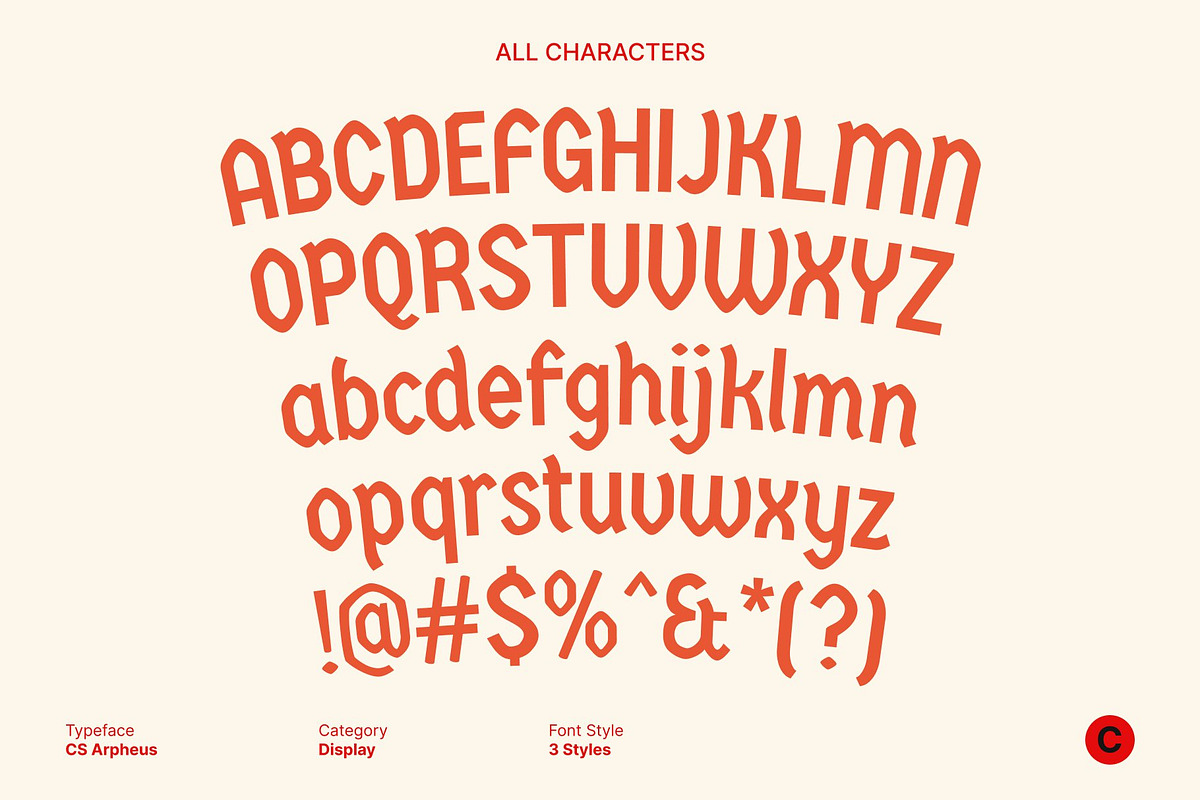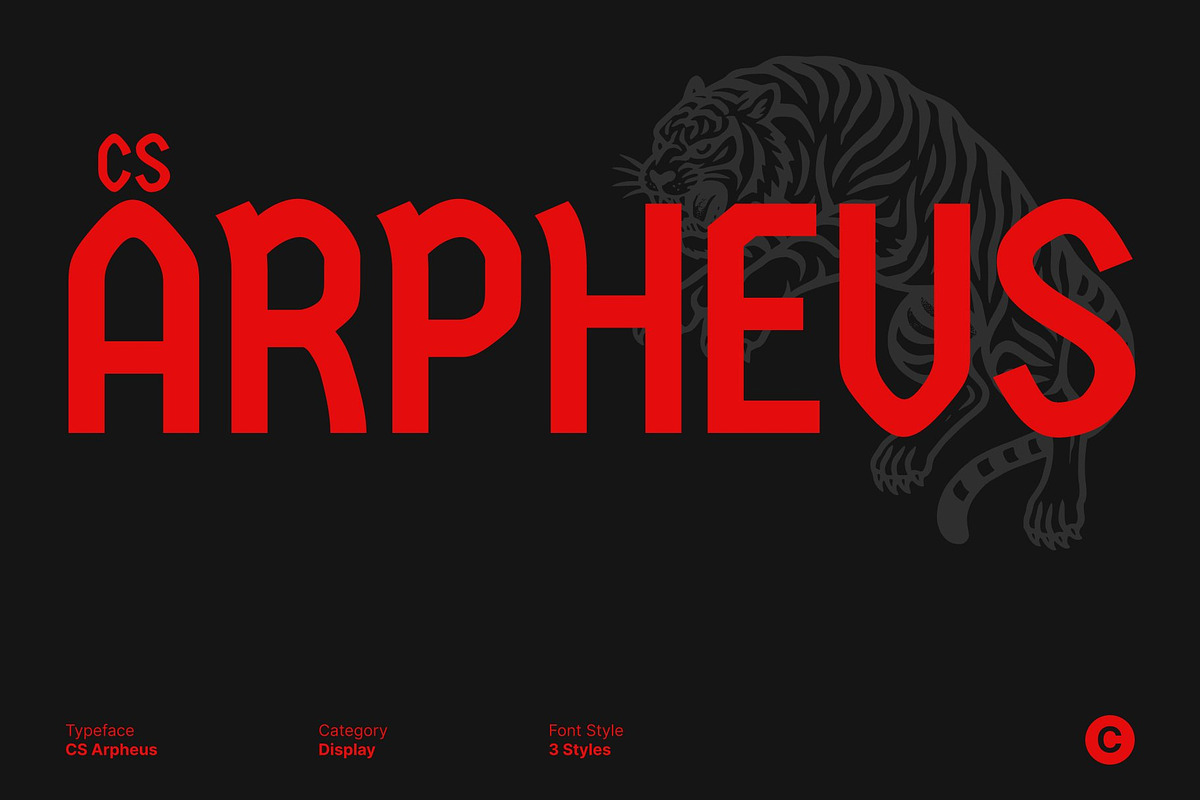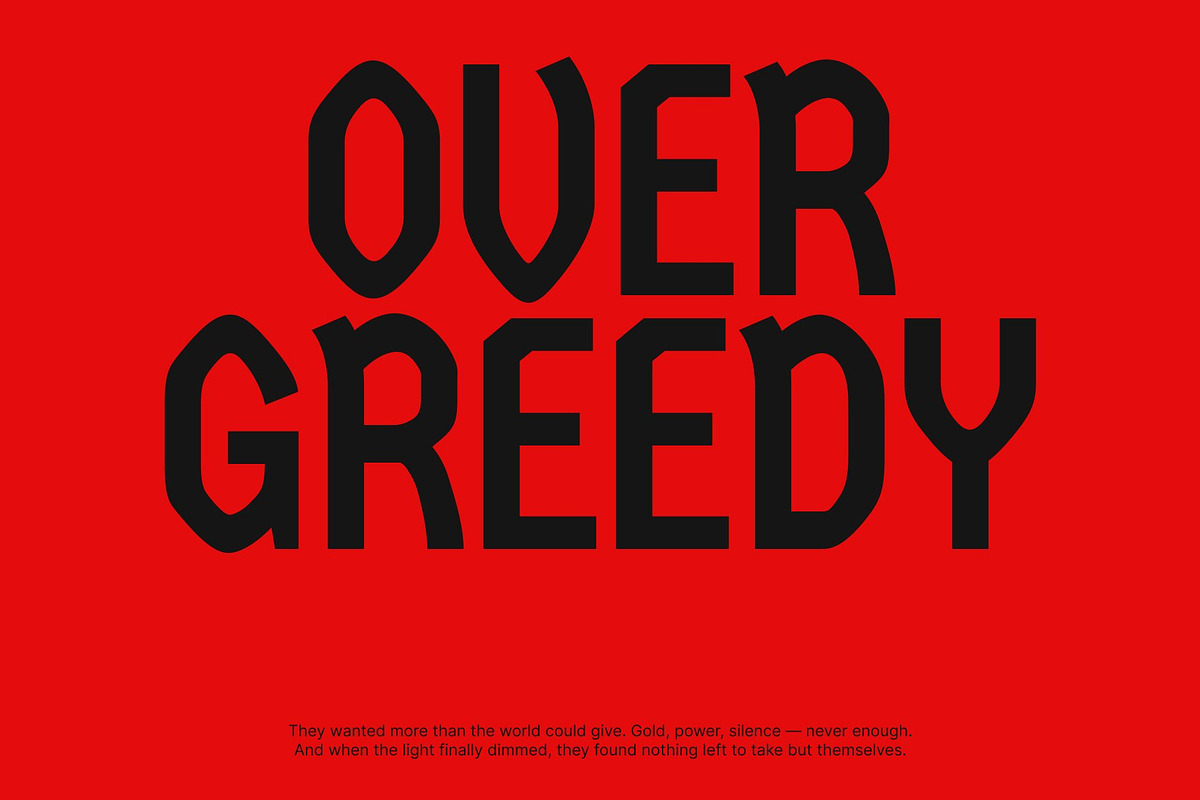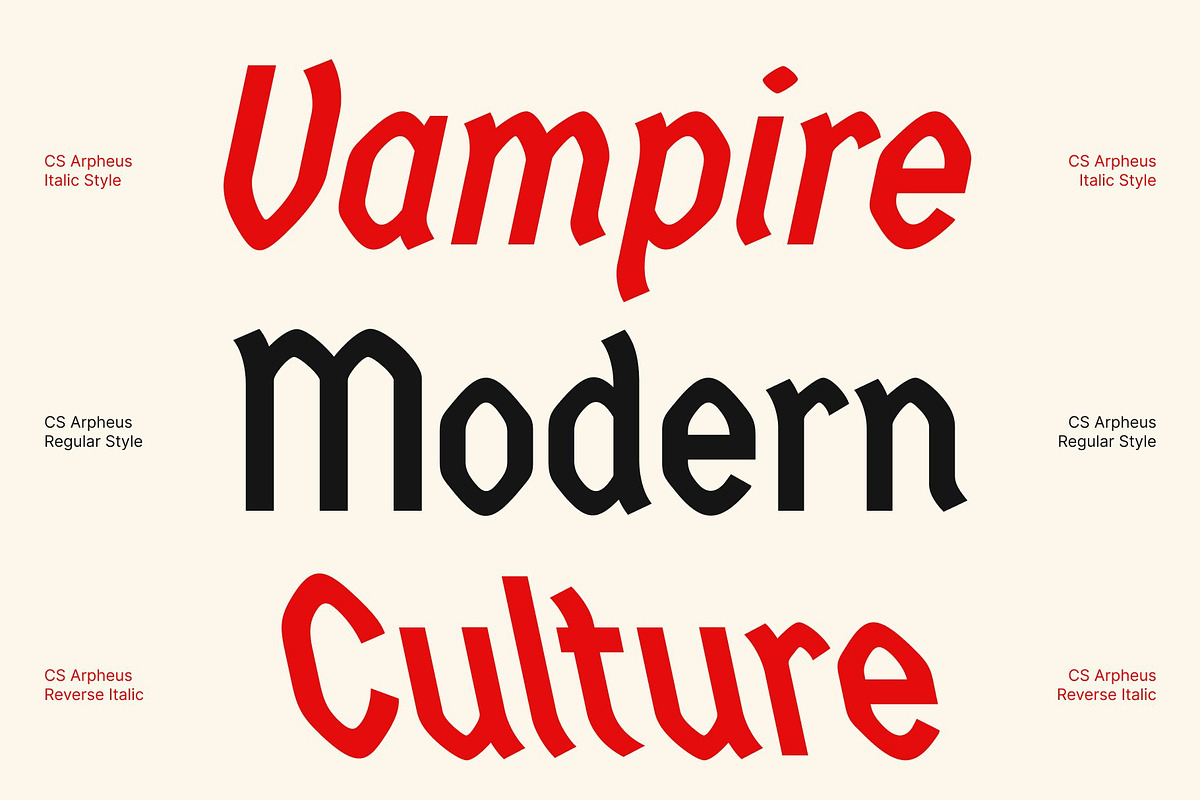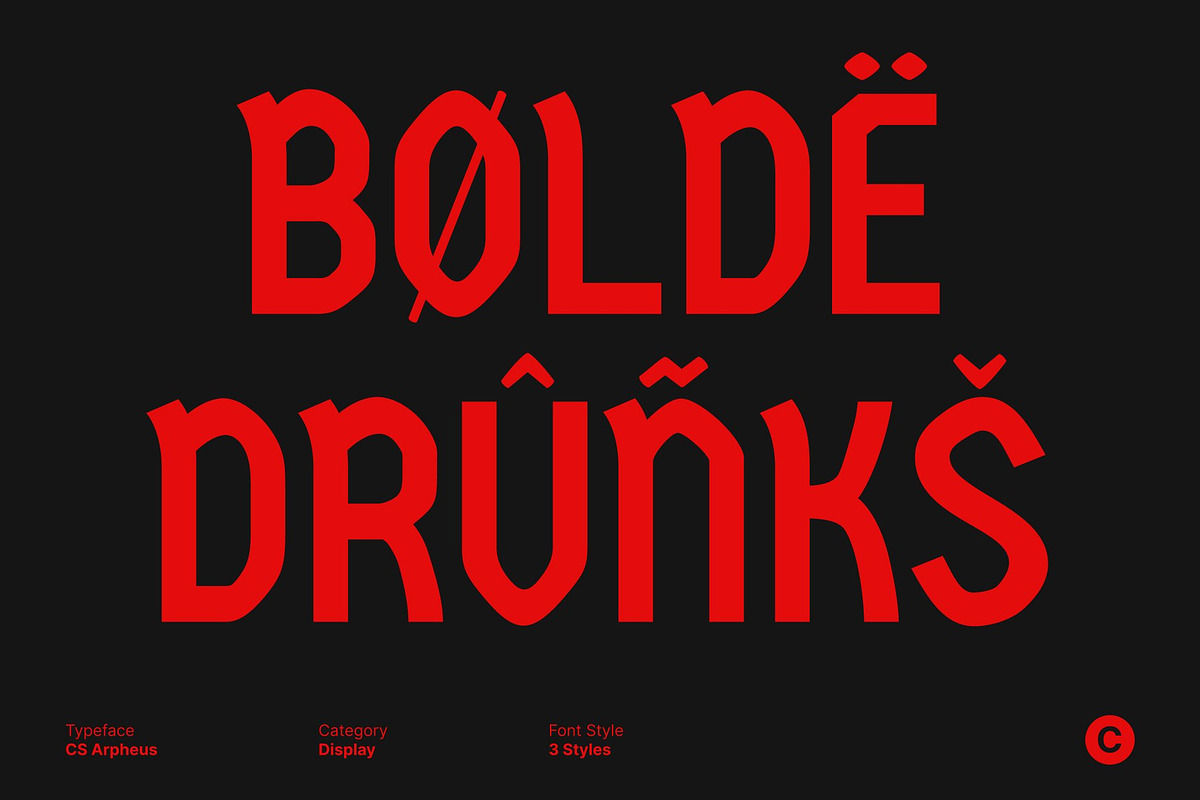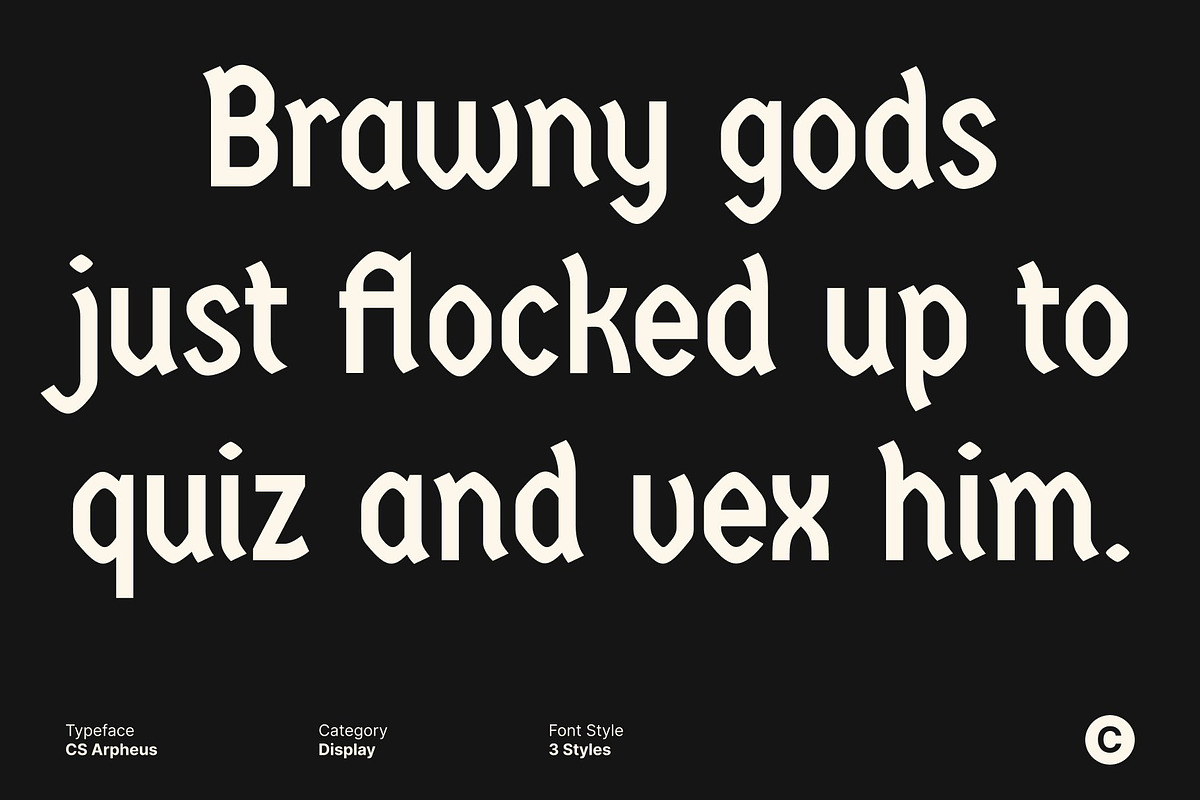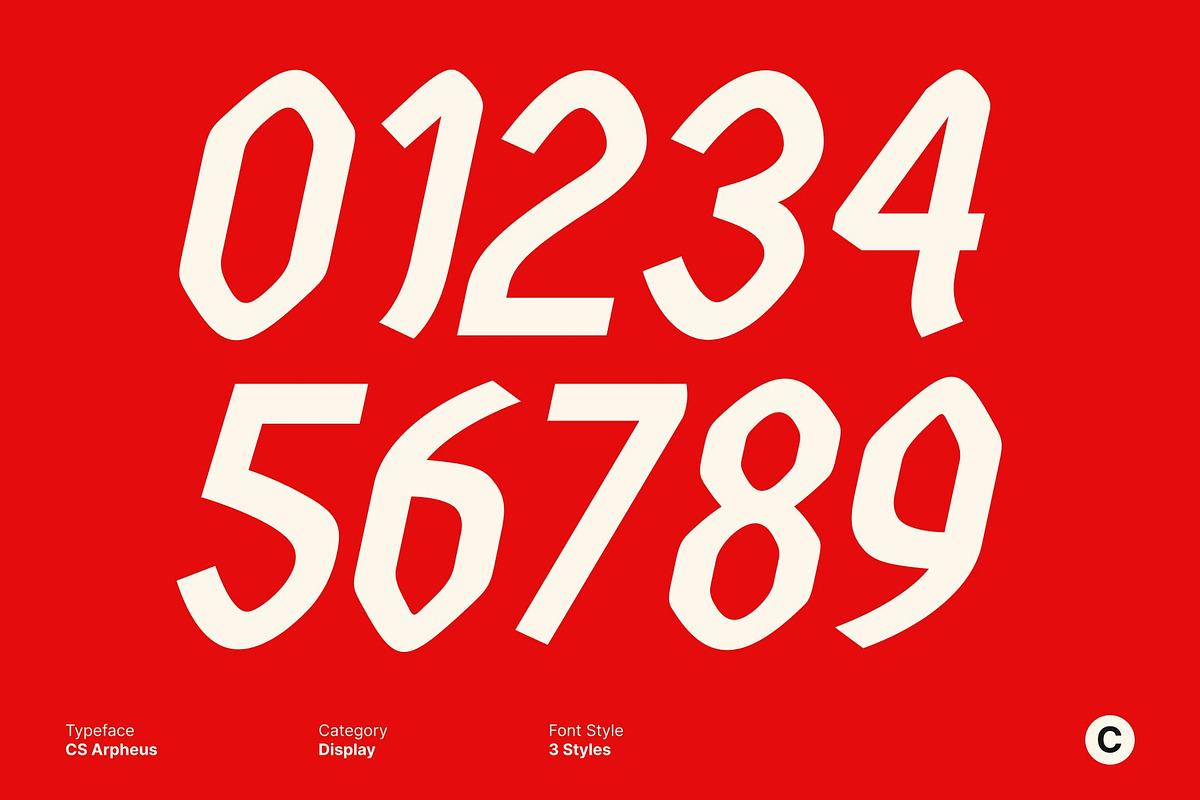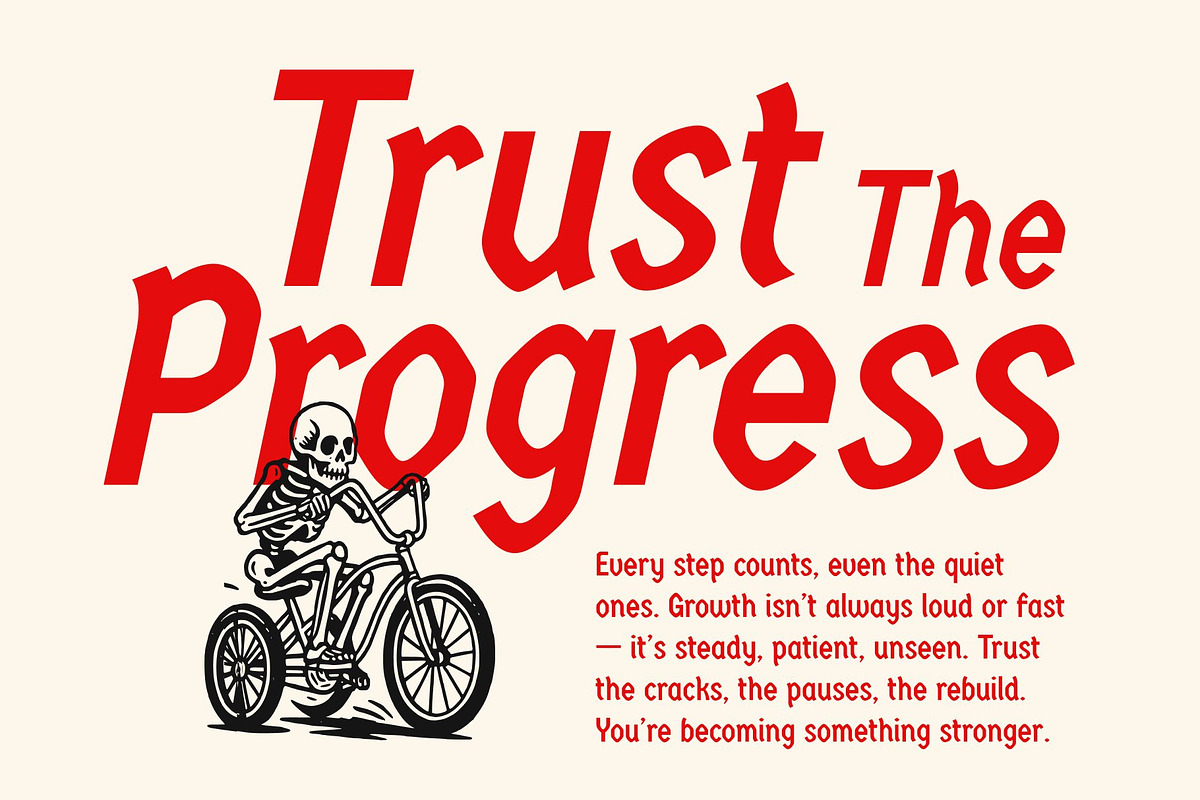
CS Arpheus – Display Sans Serif
CS Arpheus – Modern Style with Bold Character
Display Sans Serif with Contemporary Strength This is a modern display sans serif font designed to make a statement. Its stylish and striking letterforms create a confident visual presence that embodies both modernity and strength. Every curve and angle is crafted with precision, giving this typeface a sleek and assertive character perfect for today’s creative designs.
Stylish Letterforms for Distinctive Impact The unique shapes and refined geometry of this font bring a sense of individuality to your typography. Its bold proportions and sharp details ensure that each letter captures attention, while maintaining a balanced and cohesive flow across the composition. The result is a typeface that feels fresh, expressive, and unmistakably modern.
Strong Presence for Clear Communication This font combines clarity with charisma making it ideal for standout visuals. Its clean construction supports bold messaging, ensuring readability even in dynamic layouts. Whether used in large headlines or striking logos, it delivers a professional yet creative impression.
Perfect for Modern Branding and Creative Design Ideal for posters, branding, headlines, and contemporary projects, this font is built to attract attention with its modern, characterful look. It adds sophistication and energy to every design, making it the perfect choice for creators who want to project strength, style, and innovation through typography.